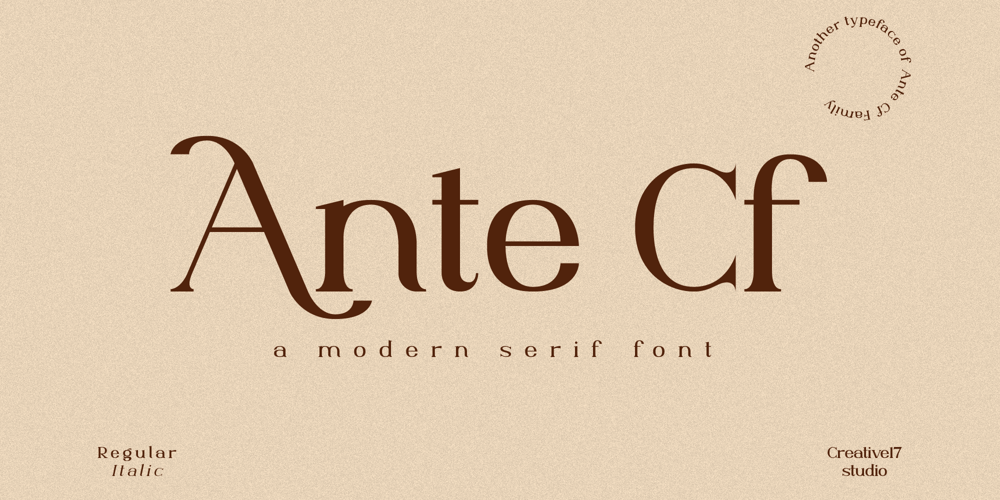
Ante Cf Serif
Ante Cf Serif font
Ante Cf Serif Font Family was designed by Irfan Hidayat and published by Creative17studio. Ante Cf Serif contains 2 styles and family package options. Ante Cf serif is an modern and elegant serif font family. This font is still included in the Ante Cf Family, created with a modern and vintage feelA very versatile font in a variety of designs you want. It is also suitable to be paired with Script / Handwritten / Minimalist Sans Serif Fonts for your project. We recommend that you have all types of Ante Cf Family Fonts (Serif / Sans Serif) to make your project even more amazing with a large selection from this Ante Cf Font Family. With Ante Cf Serif which has a large selection of alternative letters and ligatures, combined with Ante Cf Sans Serif which has a lot of weight, makes all your design projects seem complete and perfect, whether it’s for tagline, branding, editorial, magazine titles, poster design, logotypes, wedding invitations and other creative design projects.